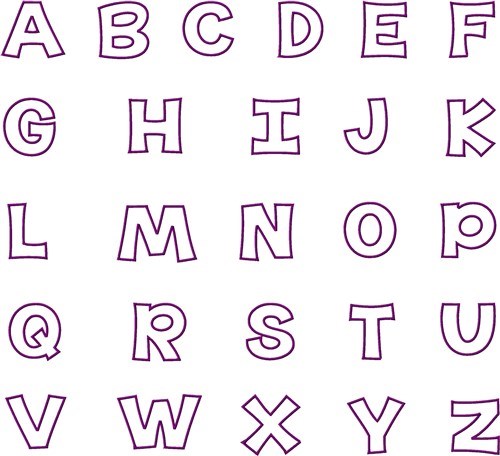
Unicorn Creatives is happy to present The Applique Font Embrilliance machine embroidery font which has Colorful applique machine embroidery font with bold letters ideal for playful designs on jackets or tote bags. Available in BX font and other Embrilliance formats. included. If you would like to view more embroidery fonts and alphabets please search our embroidery fonts page.